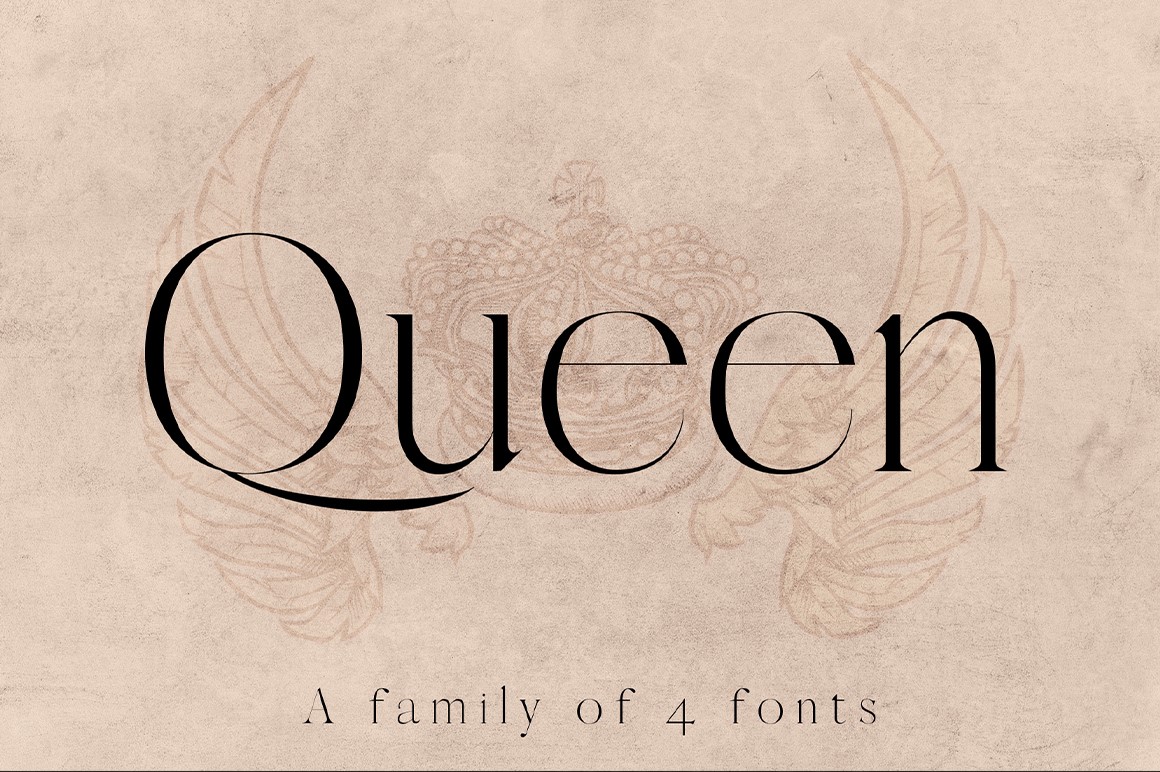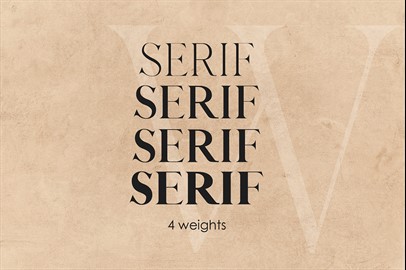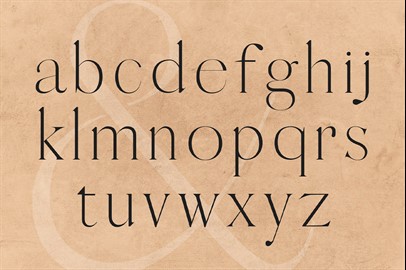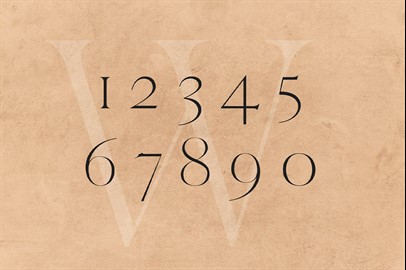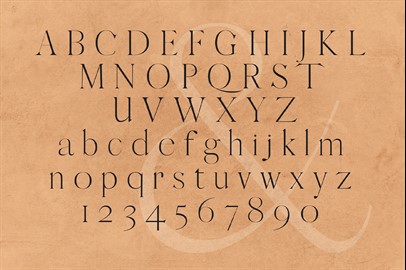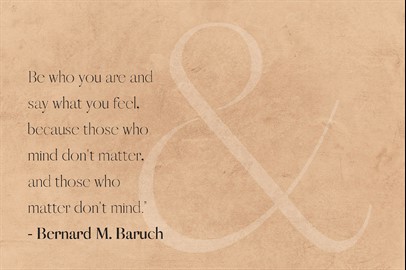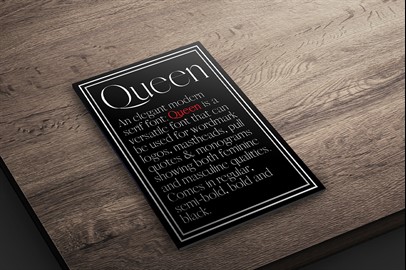
QUEEN Typeface: An Elegant Serif Font
An elegant modern serif font:
Queen
is a versatile font that can be used for wordmark logos, mastheads, pull quotes & monograms showing both feminine and masculine qualities. Comes in regular, semi-bold, bold and black.